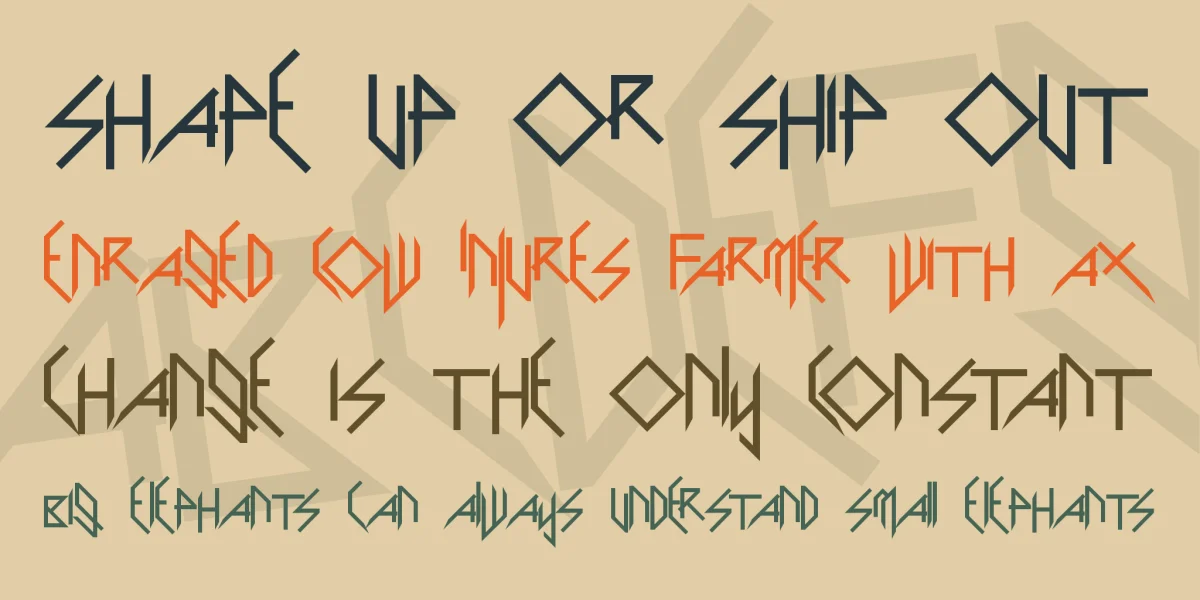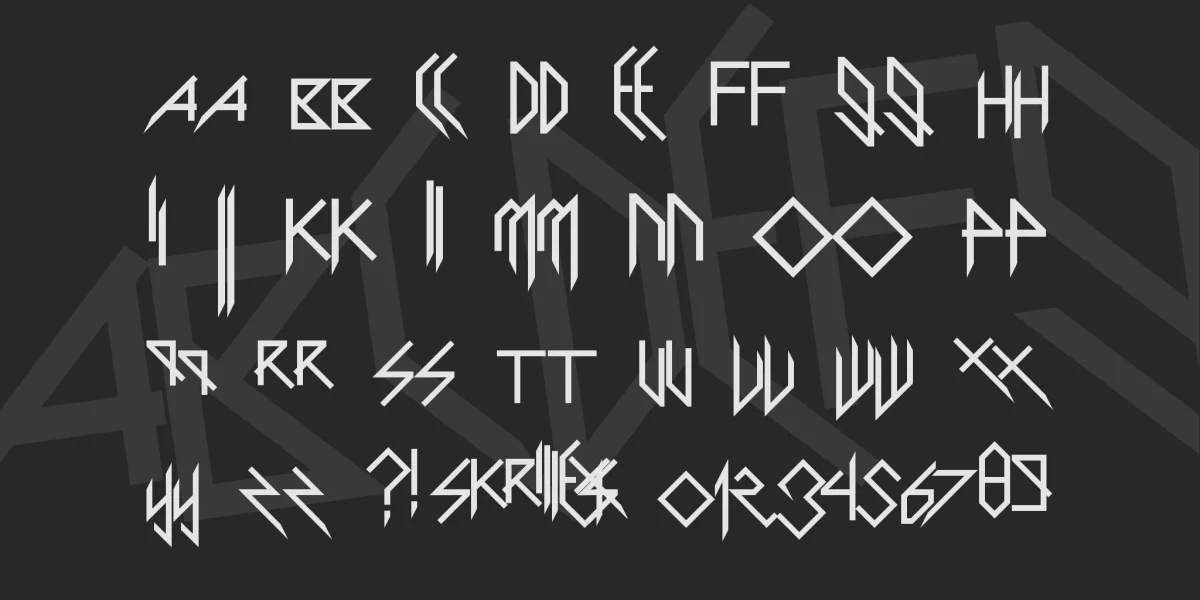
A font inspired by Skrillex logo. Skrillex is a stage name of Sonny Moore, an electronic music artist who is famous for his dubstep releases, especially his EP called "Scary Monsters and Nice Sprites". Enjoy.